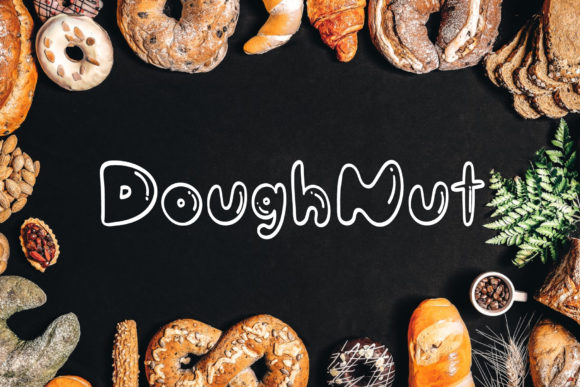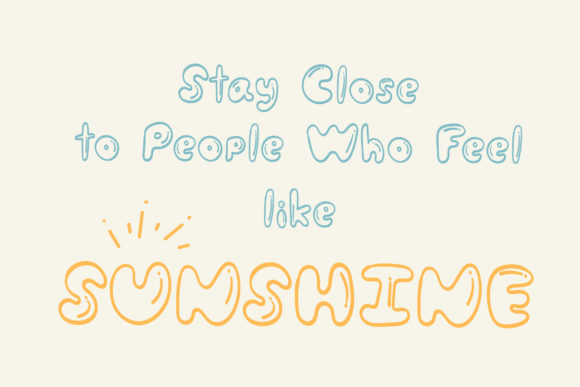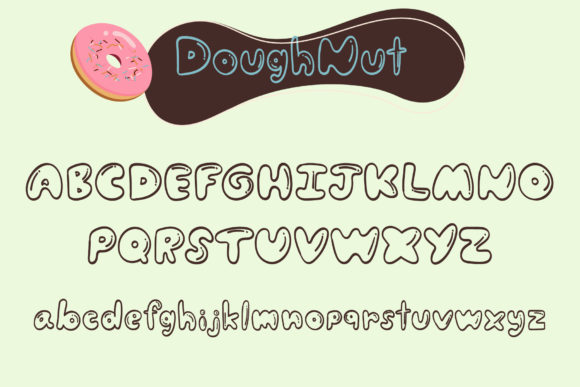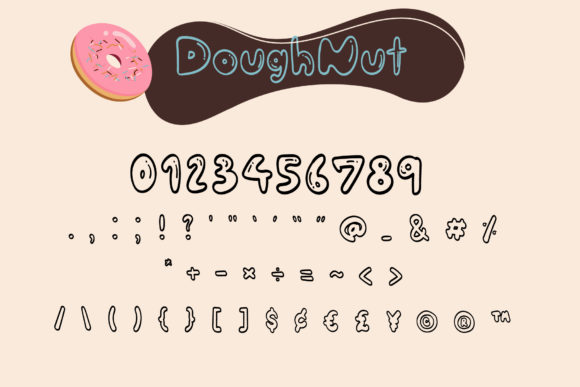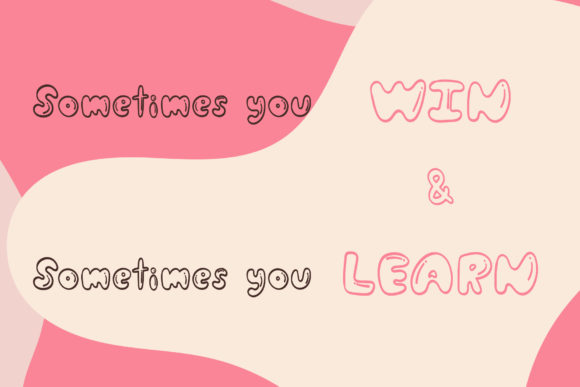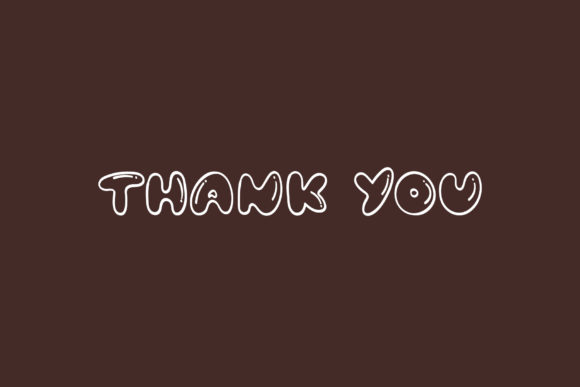
Doughnut Font
About Doughnut Font
Doughnut embodies fun, quirkiness and authenticity. This enchanting handwritten font will turn any creative idea into a true standout.